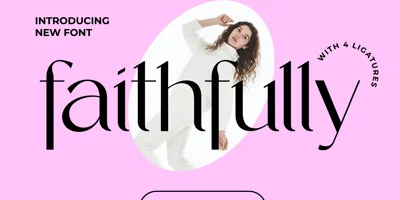
The Faithfully Font excels in various design applications including religious institution branding, spiritual community communications, wedding ceremony materials, faith-based organization identities, devotional publication design, church signage projects, religious education materials, spiritual retreat promotions, sacred music covers, and inspirational brand systems that demand spiritual authenticity and unwavering devotional elegance.
What makes the Faithfully Font exciting is its embodiment of steadfast devotion and spiritual commitment through letterforms that capture the essence of unwavering faith and sacred dedication. This typeface demonstrates exceptional reverence through carefully crafted characters that suggest the reliability of spiritual foundation, the comfort of divine presence, and the enduring strength found in faithful commitment. The font's devotional personality makes it perfect for religious organizations and spiritual brands seeking to communicate trustworthiness, sacred purpose, and the timeless appeal of faithful service through typography that literally embodies the constancy and reliability that defines true faith.
The Faithfully Font family typically includes reverent weight variations that enhance the spiritual aesthetic, featuring gentle italic styles with sacred flourishes and devotional decorative elements. These family options often include inspirational alternates, religious symbols, and faith-inspired ornaments that provide designers with comprehensive tools for creating authentically spiritual typography that honors religious traditions while maintaining contemporary accessibility and inclusive appeal.
Religious leaders and faith-based organizations consistently choose Faithfully Font for projects requiring typography that establishes spiritual credibility and communicates devotional excellence. This typeface delivers exceptional performance in religious communications, spiritual marketing, and faith community branding where demonstrating genuine commitment and establishing trust through sacred design is essential for congregation engagement. The font's faithful character makes it particularly effective for ceremonial and commemorative religious applications. Download Faithfully Font today to access this devoted typeface that transforms spiritual communications with its faithful authenticity and devotional sophistication, creating compelling religious experiences that honor the sacred nature of faith while inspiring deeper spiritual connection and community devotion.